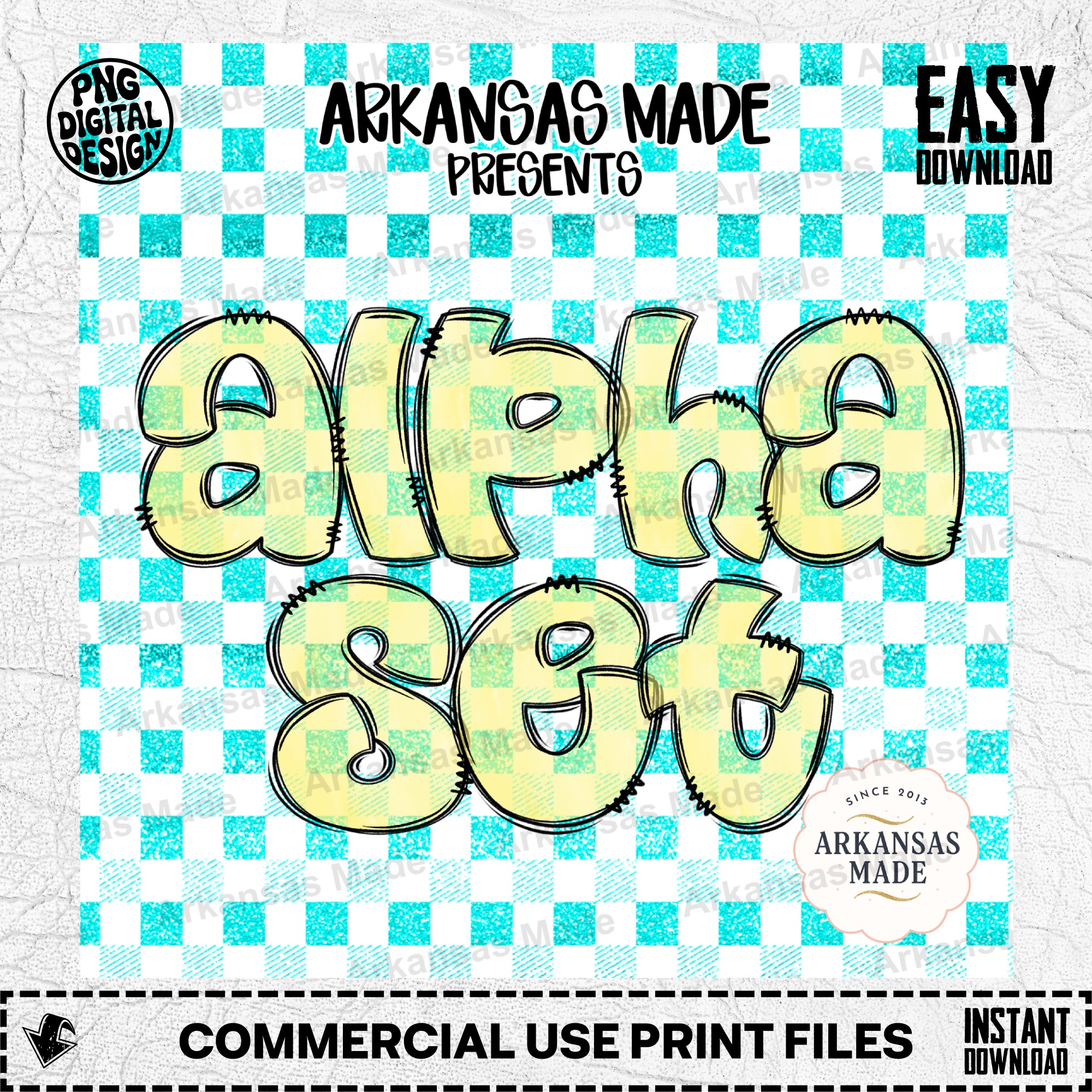
Alpha PNG Set Distressed Plaid Letters Alphabet PNG Bundle Faux Gingham Sublimation Font Bubble Outline Digital Download
Instantly elevate your designs with this charming Alpha PNG Set, featuring distressed faux gingham letters perfect for sublimation and crafts. Unleash your creativity with this bubbly alphabet, complete with unique faux stitching details and a playful handwritten style. Ideal for DIY projects, personalized gifts, t-shirt designs, and classroom decor. A must-have digital download for crafters, small business owners, and teachers seeking a cozy, rustic aesthetic for their creations.